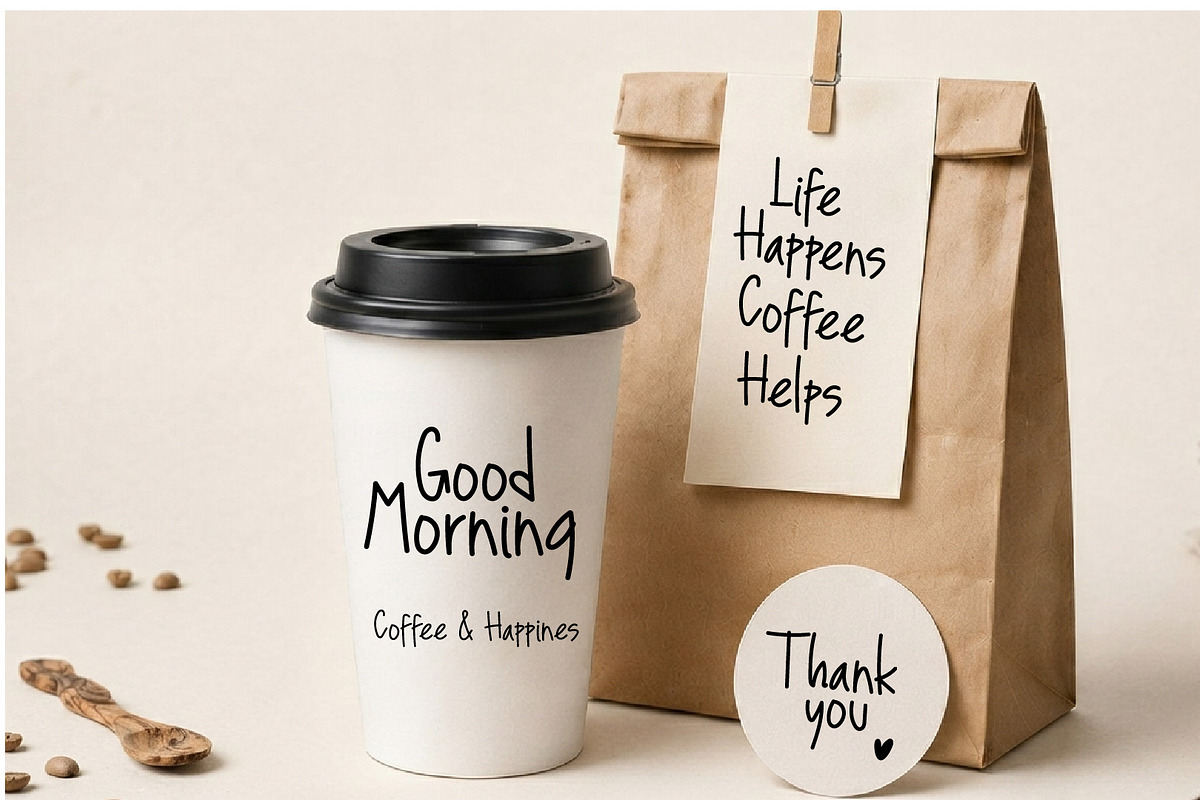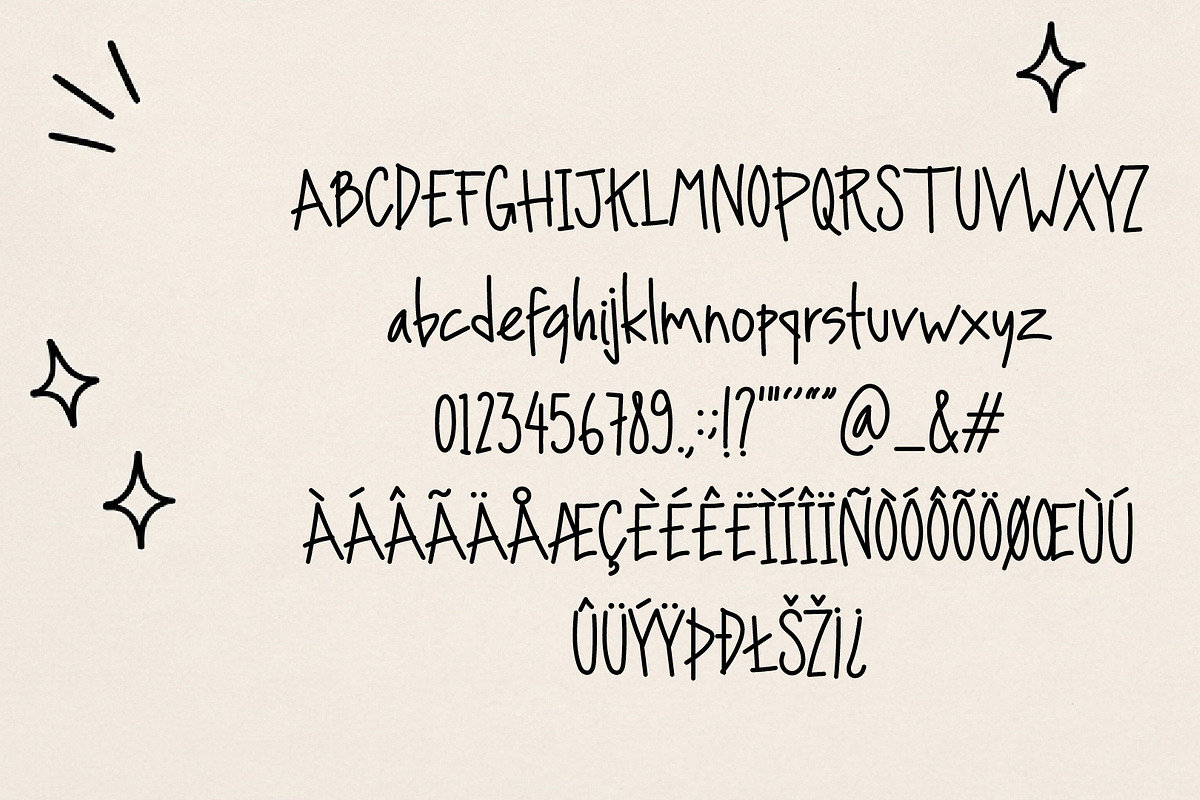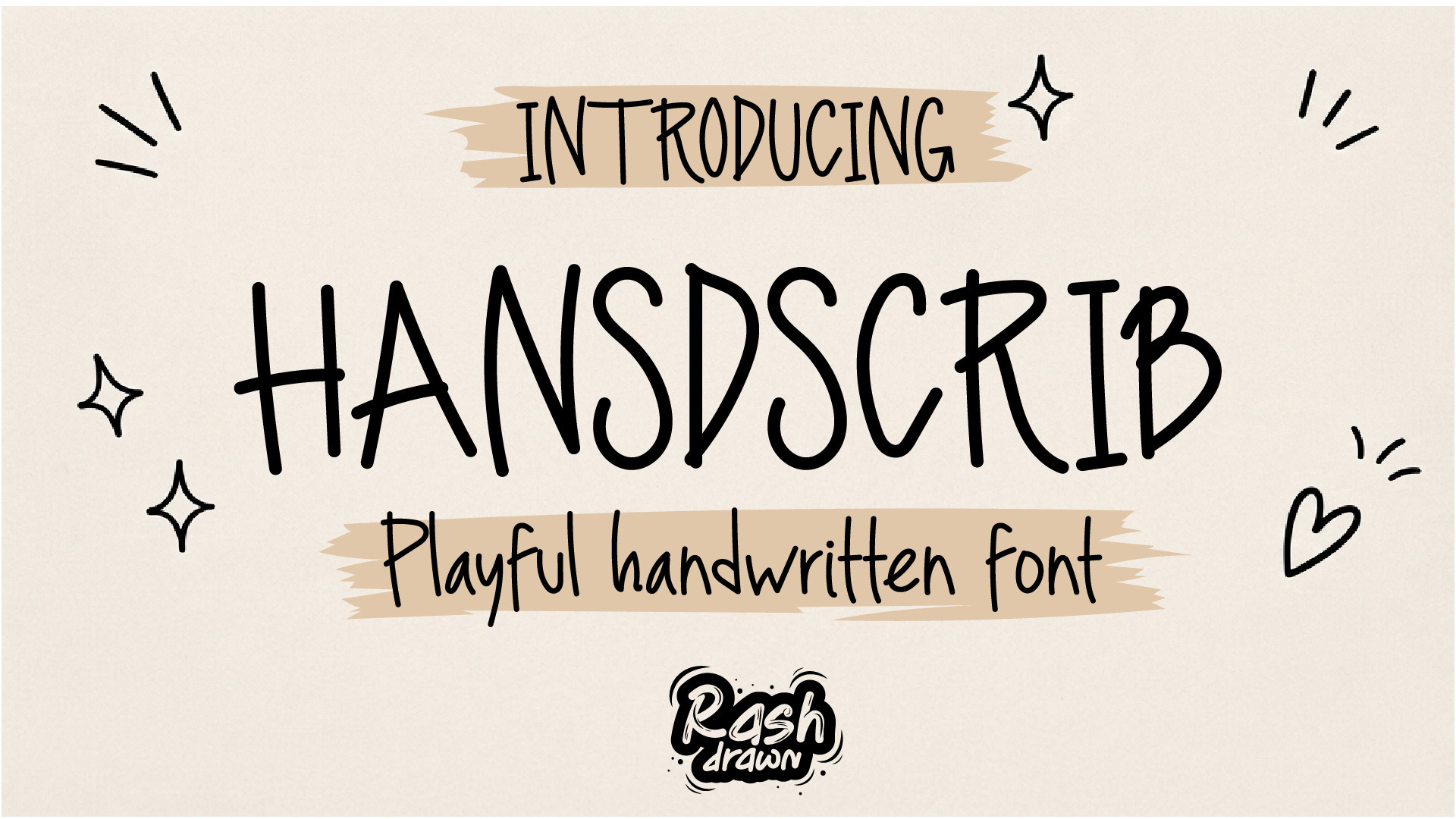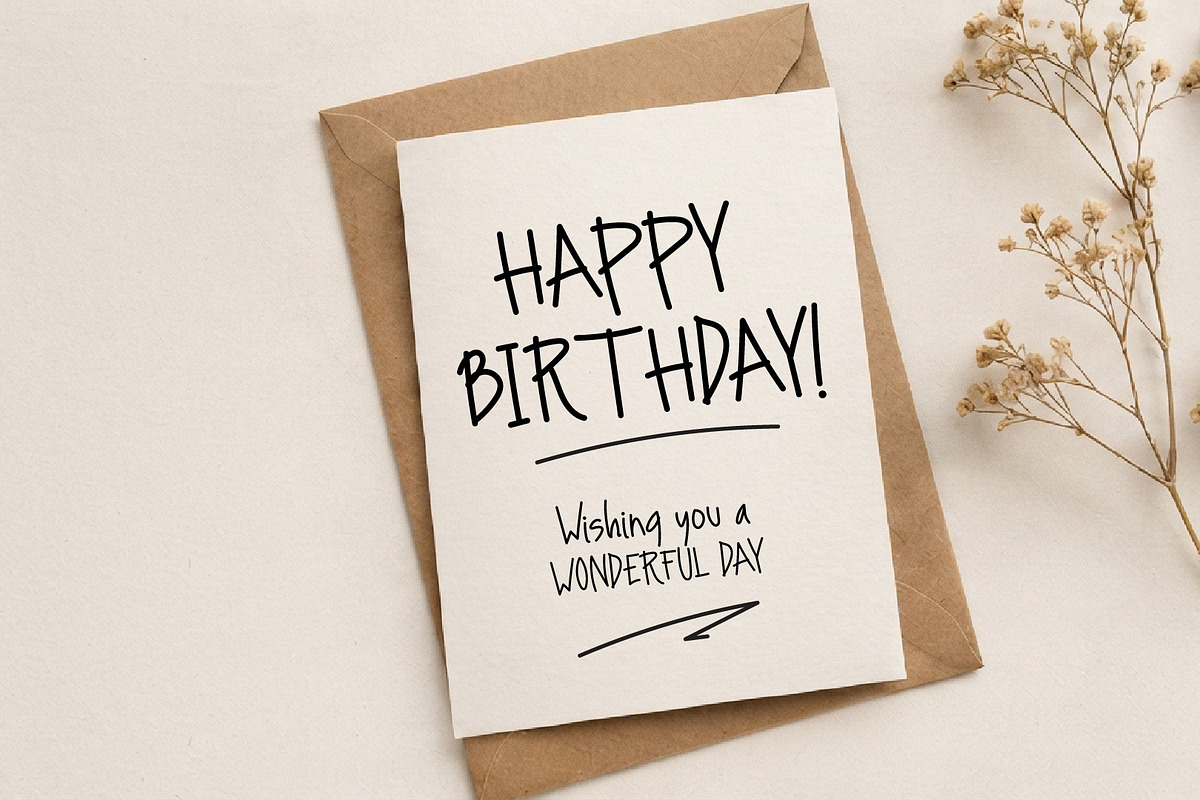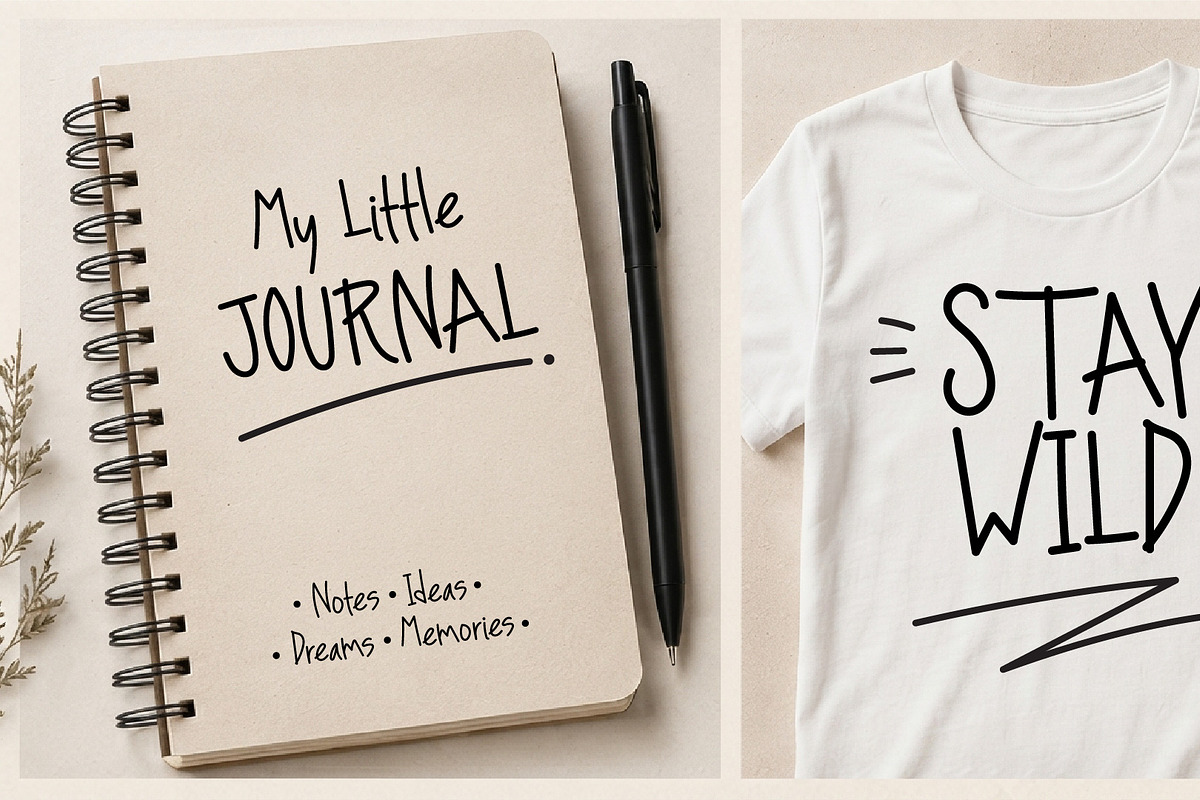
Handscrib – Playful Handwritten Font
Bring a fun, casual, and handmade feeling to your designs with Handscrib!
Handscrib is a charming handwritten font designed with natural, slightly imperfect letterforms that create an authentic hand-drawn look. It is playful enough for fun projects while remaining versatile for branding, packaging, stationery, apparel, and everyday creative designs.
Great For
Logos & Branding
T-Shirt Designs
Packaging
Stickers
Greeting Cards
Invitations
Quotes
Posters
Social Media Content
Journals & Planners
Product Labels
Cafe & Bakery Designs
Small Business Branding
Handscrib is a great choice when you want your design to feel personal, friendly, creative, and handmade.Create something fun. Create something personal. Create it with Handscrib.